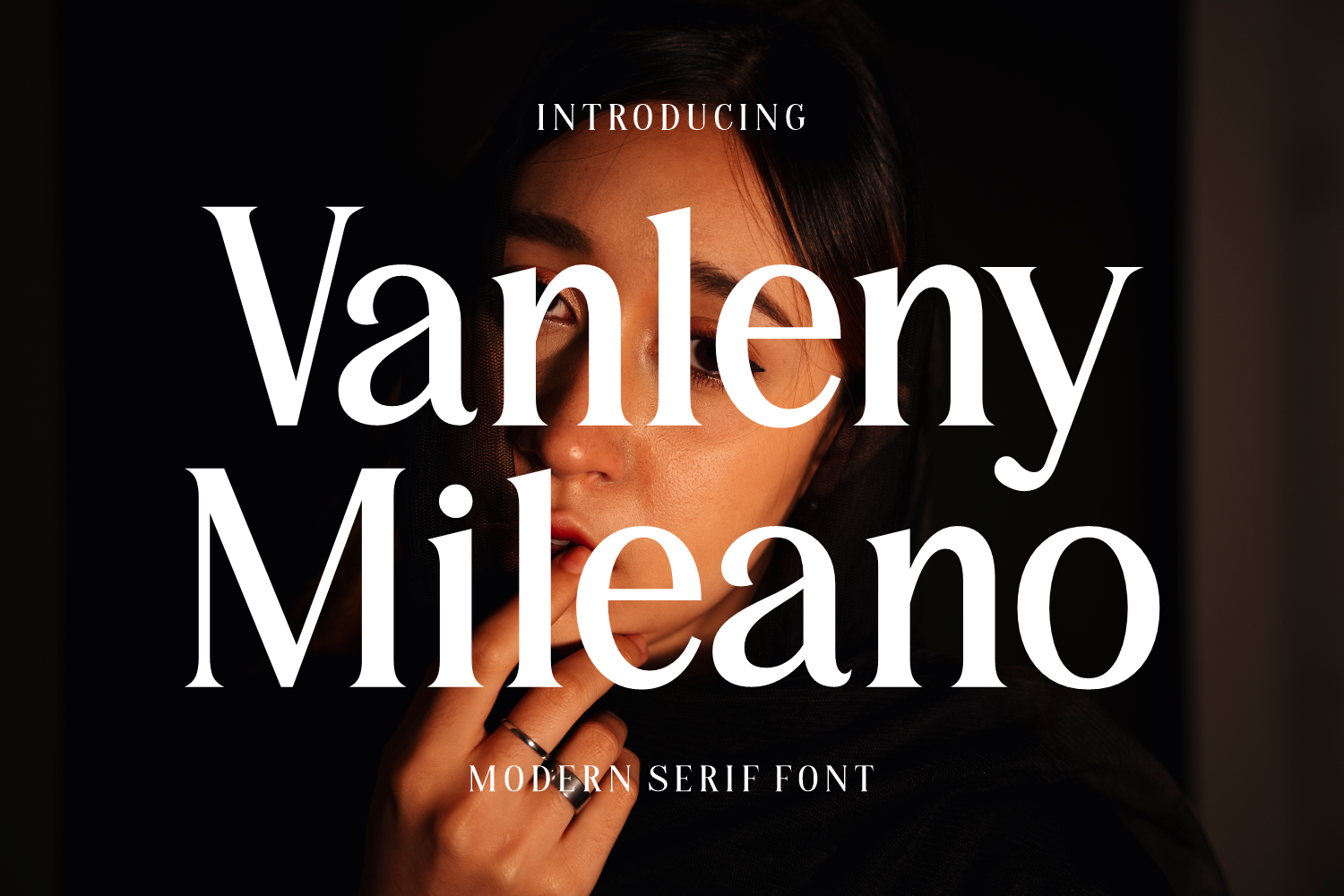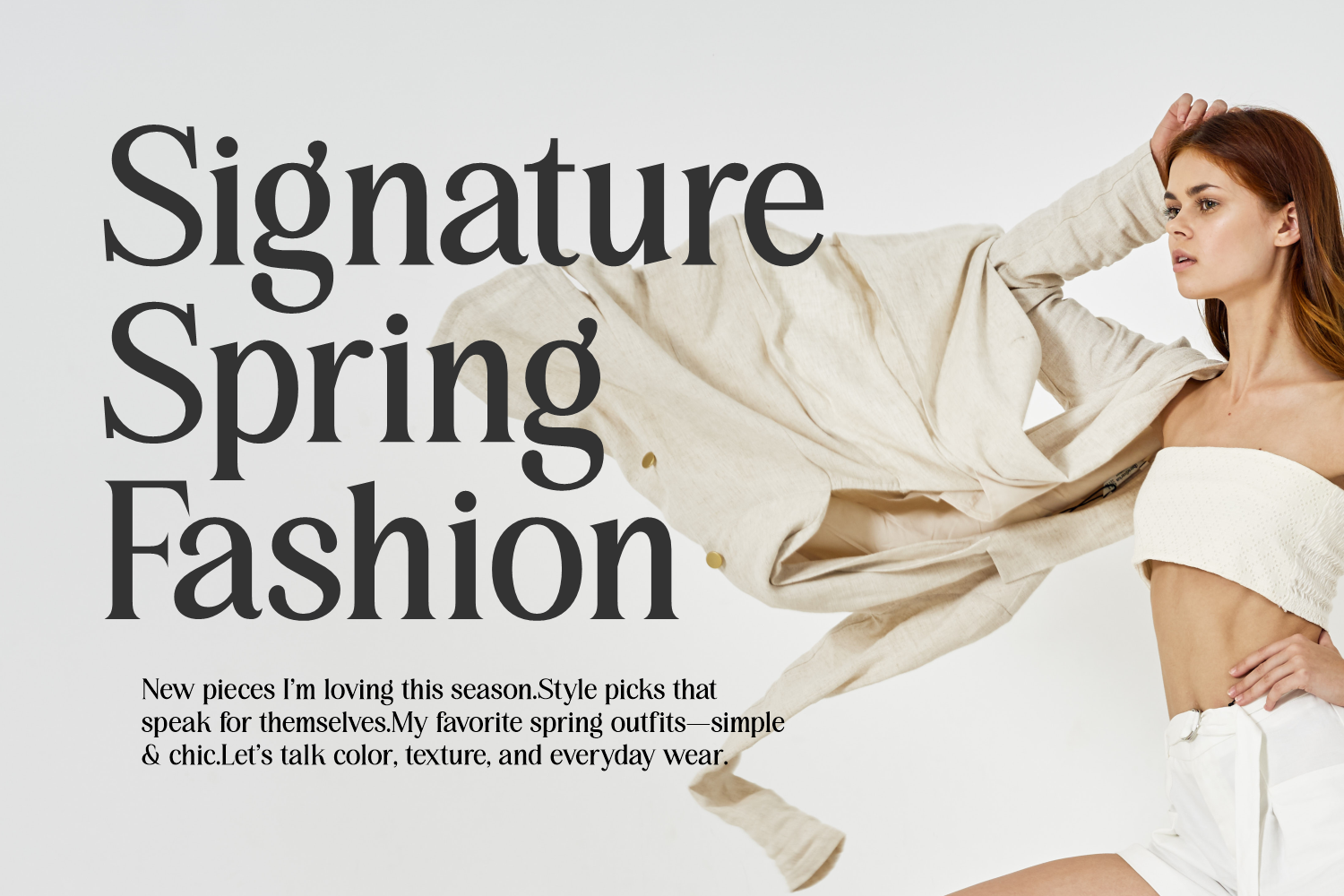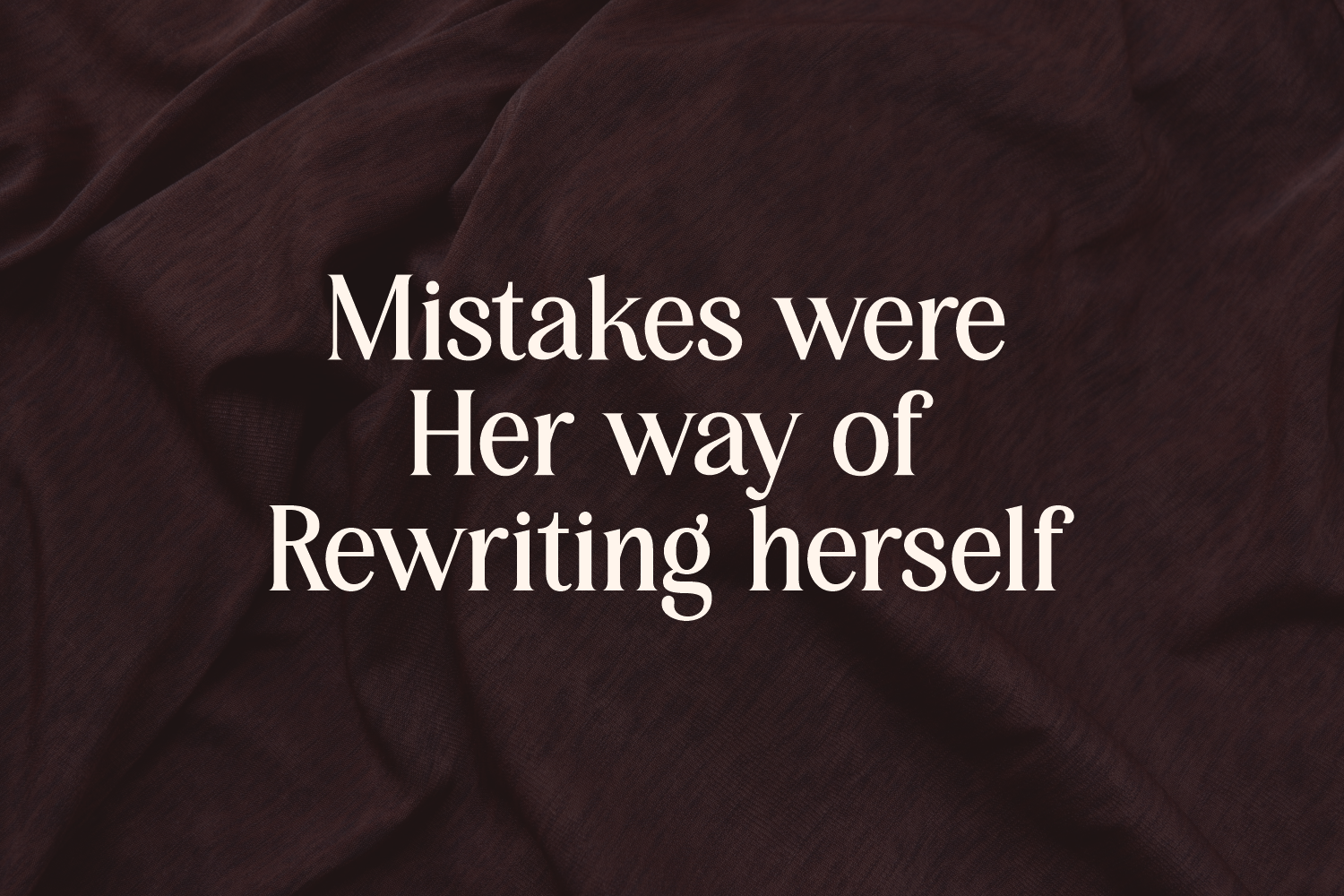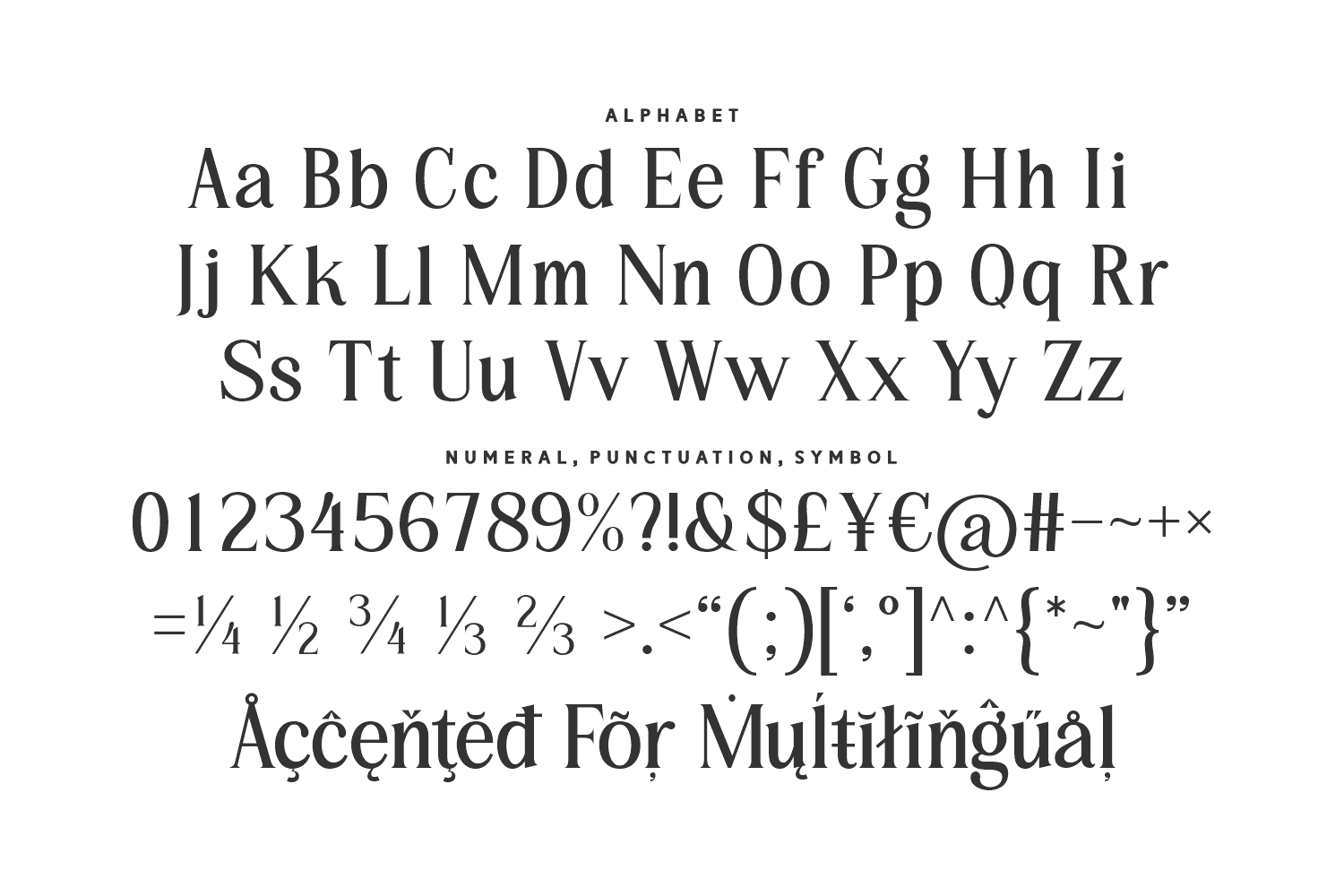
Vanleny Mileano is a sophisticated modern serif font with expressive curves and a polished silhouette. Its versatility makes it ideal for fashion branding, high-end logos, and editorial spreads that need a contemporary yet timeless appeal.